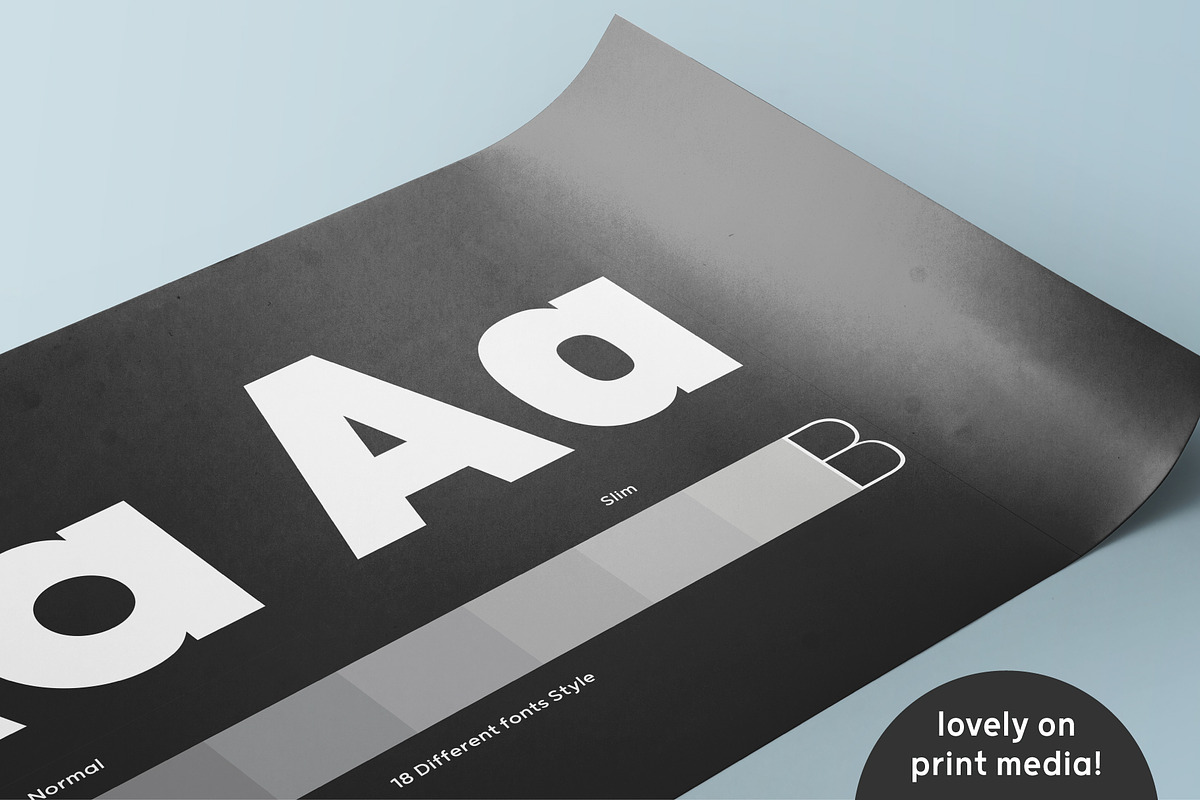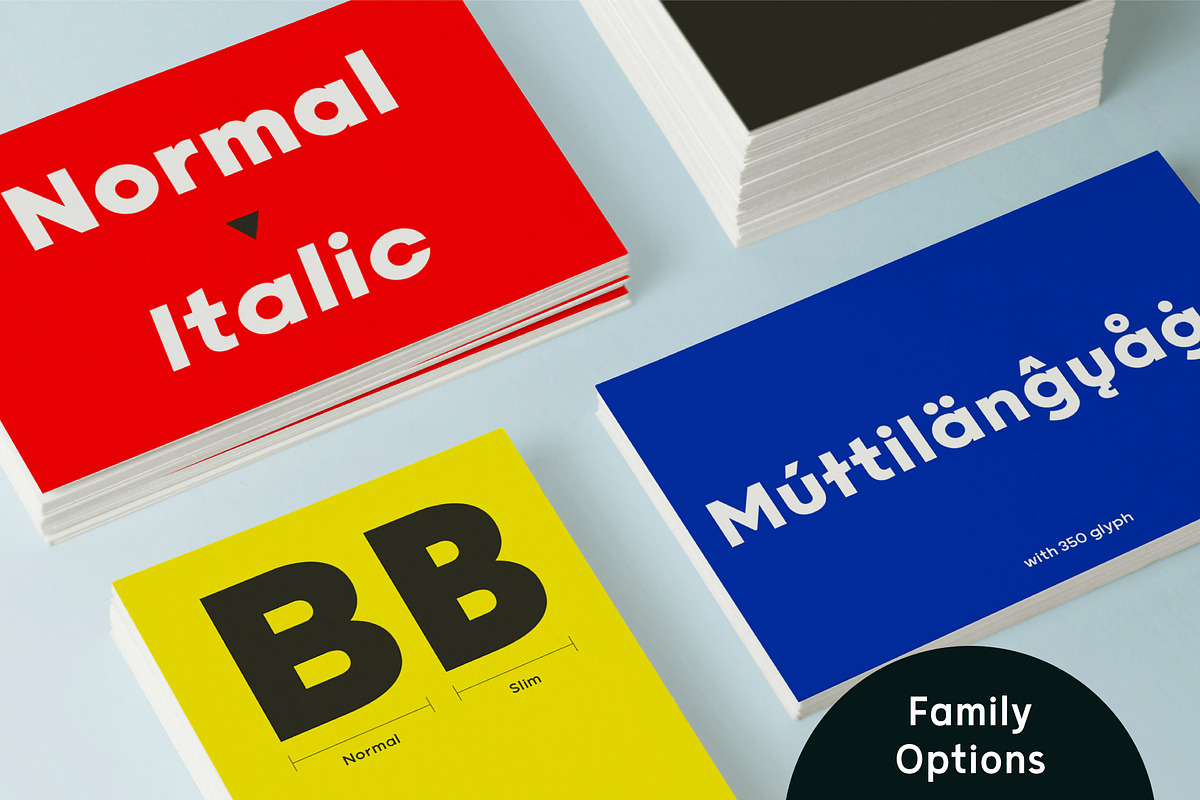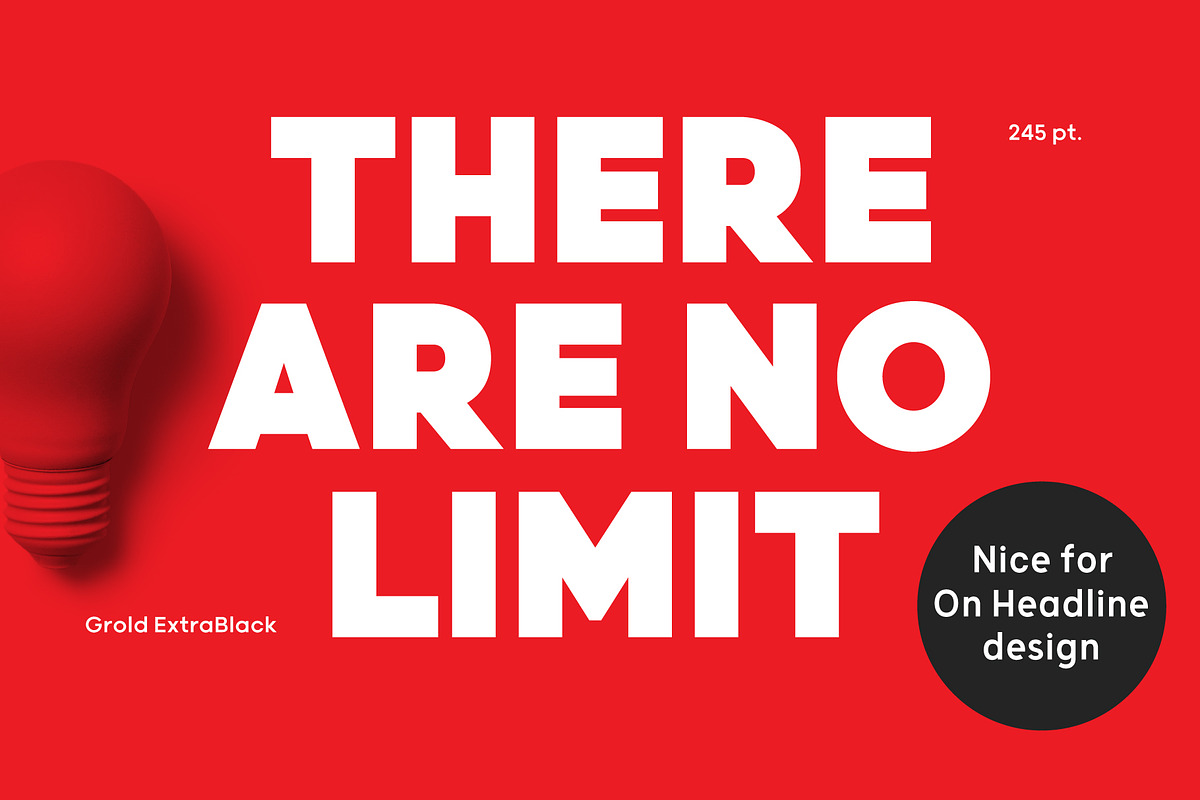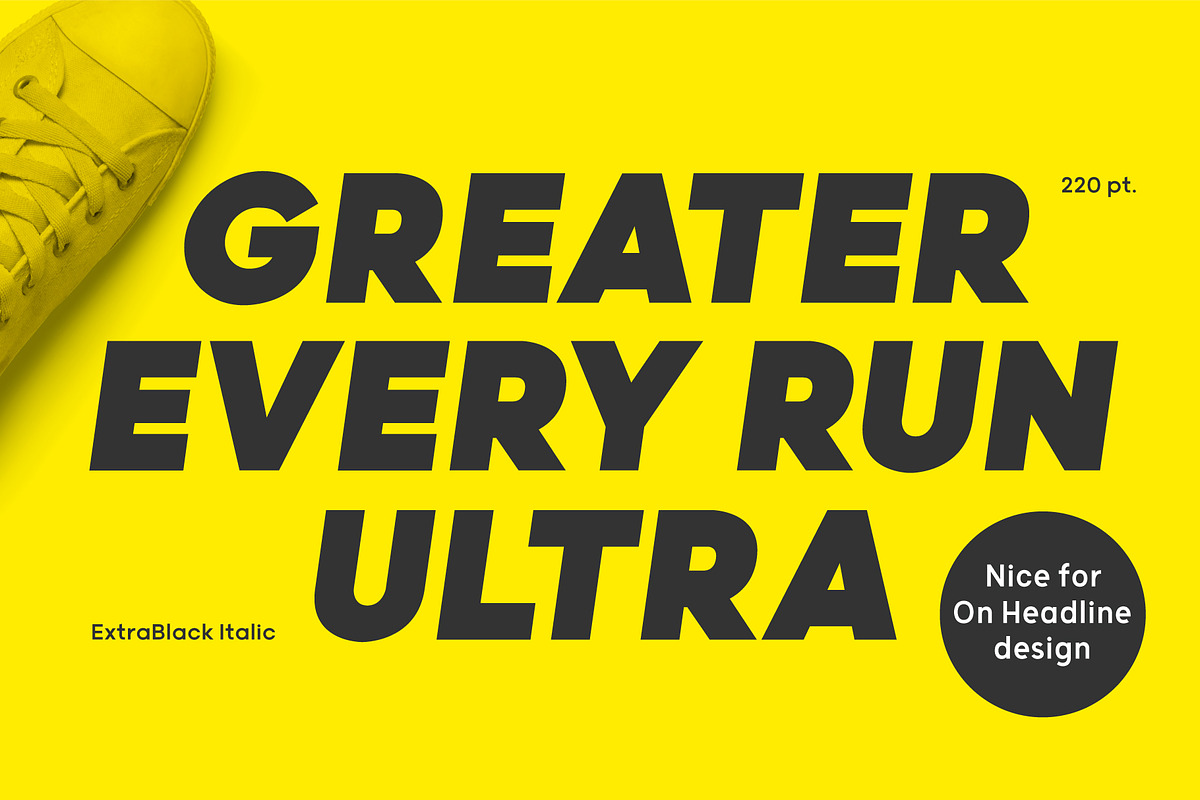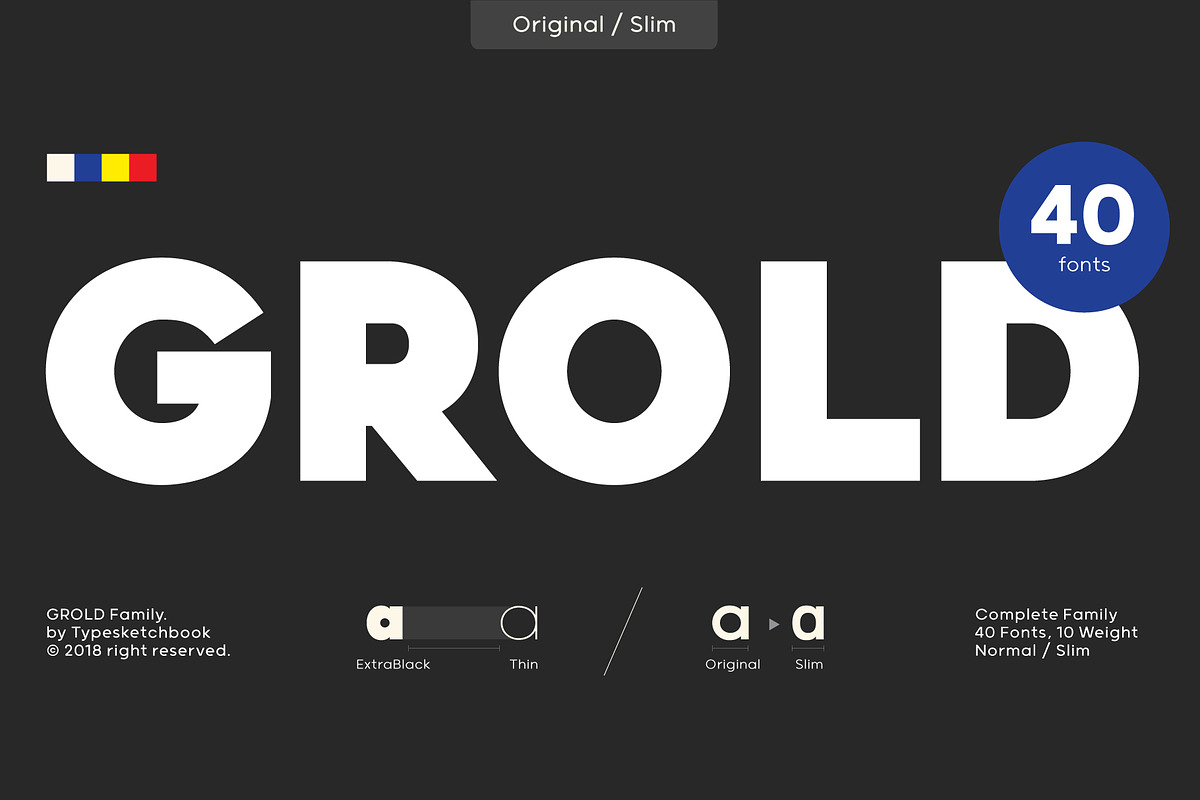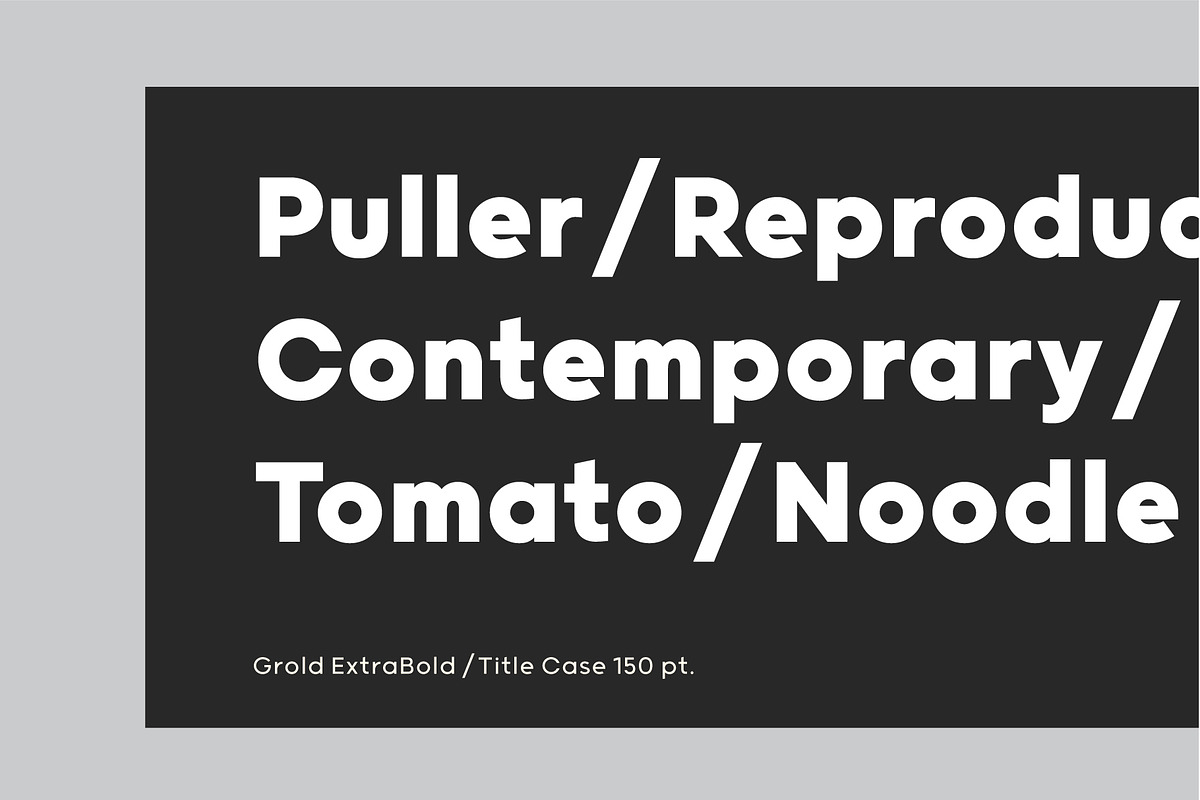
Grold
Grold is a post-geometric typeface made up of 40 fonts across 10 weights with normal and slim options. It’s a unique and modern sans typeface, which is well suited for a variety of typographic applications such as headlines and small texts. The Grold font family supports multiple languages and is available as both webfont and desktop font.